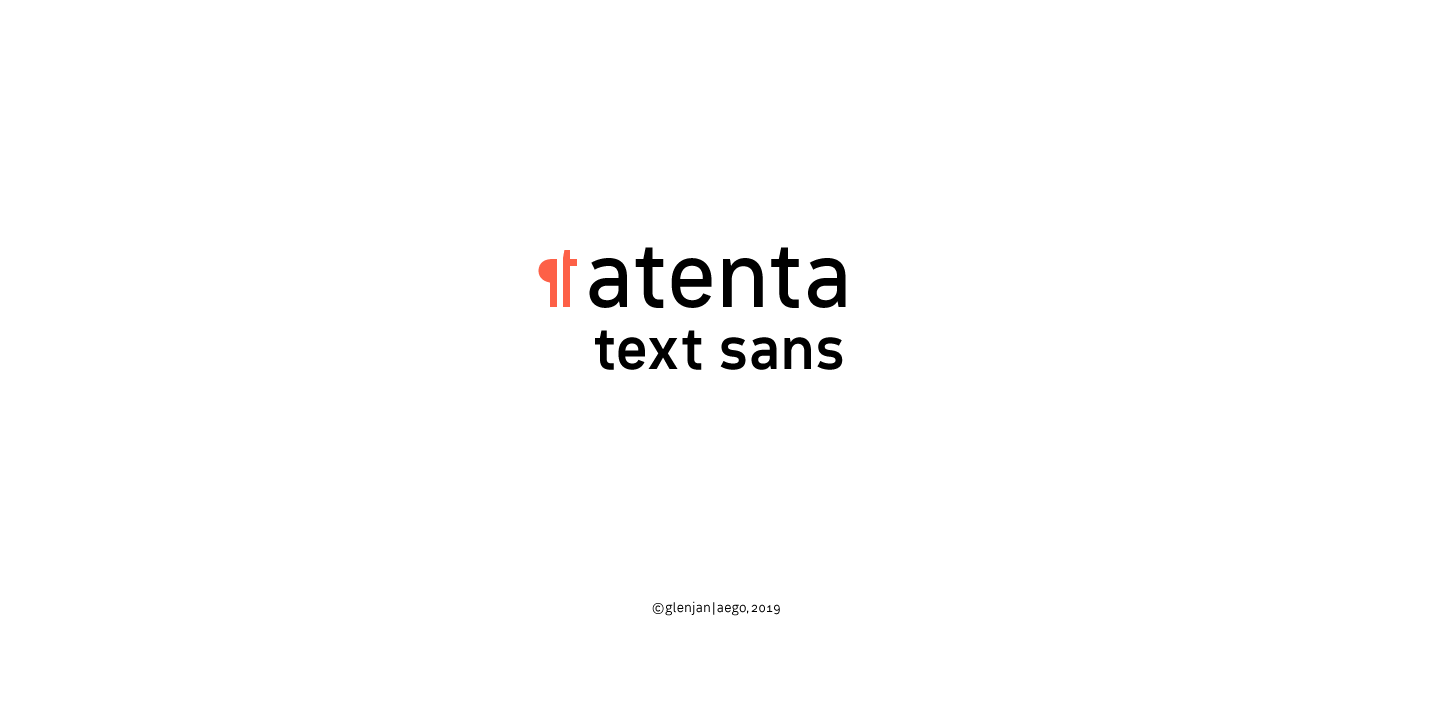
Atenta Font is ideal for mindfulness coaching branding, attention training programs, focus enhancement materials, meditation center signage, concentration app interfaces, and awareness-building educational resources.
Atenta Font is exciting because it embodies focused awareness and mindful attention, delivering a thoughtfully balanced typeface that captures the essence of present-moment consciousness, mental clarity, and the practice of intentional focus.
The Atenta Font family includes mindful variations: Atenta Light, Atenta Regular, Atenta Medium, Atenta Bold, focused alternates, and decorative elements that enhance the font's attentive and awareness-centered character.
Focus your design intentions with Atenta Font Free Download, a mindfully crafted typeface that brings concentrated awareness and mental clarity to your most purposeful design projects. This thoughtful font excels in creating memorable branding for meditation studios, attention training centers, mindfulness coaches, and educational organizations that help people develop better focus and present-moment awareness in our distraction-filled world. The carefully designed letterforms feature balanced proportions and calm geometric construction that communicate clarity, intention, and mindful presence while ensuring excellent readability across all awareness-focused applications. Perfect for mindfulness training materials, focus enhancement apps, meditation guides, and attention deficit support resources that need to convey mental clarity and purposeful concentration, this font connects with individuals seeking to improve their ability to focus and live more consciously. Each character stands with intentional presence, making every mindful message feel like a gentle reminder to return attention to the present moment and engage fully with life. Atenta Font transforms routine communications into mindful invitations that encourage audiences to develop greater awareness, improve concentration skills, and discover the peace that comes from focused attention.